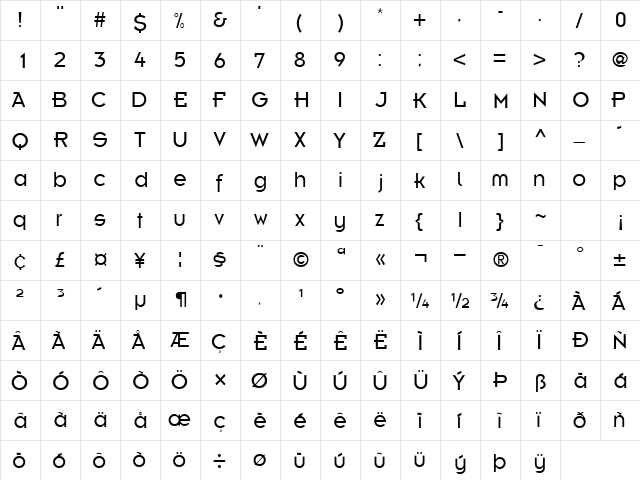
KernelLightAlternateSSK Regular
Design Context for KernelLightAlternateSSK Typeface
KernelLightAlternateSSK is a composed and adaptable typeface that performs quietly and consistently across a wide range of design contexts. Its slender proportions lend an understated elegance to any composition.